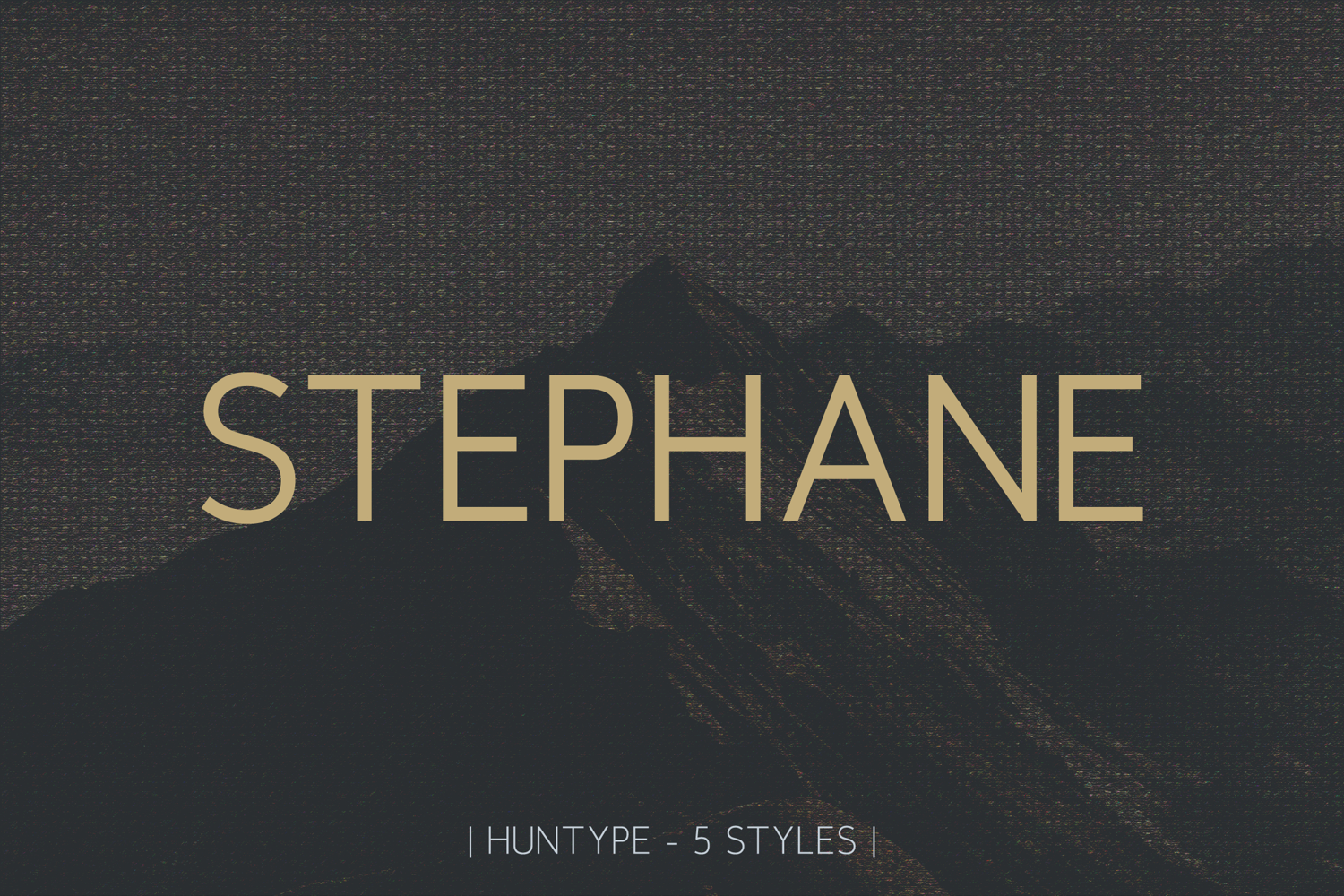
Stephane Sans Serif Family - 5 Styles
Stephane Bold
Stephane Black
Stephane Regular
Stephane Light
Stephane Thin
Stephane is a modern and versatile font family, a blend of clean geometric forms and subtle sophistication. Its adaptable style is evident in the precise letterforms and contemporary aesthetic. A harmony of sharp lines and gentle curves. Each font in the family stands alone, impactful and refined in its own right.
Stephane includes five fonts: Thin, Light, Regular, Bold, and Black.
• Stephane Black - Bold and impactful for commanding headlines.
• Stephane Bold - Strong and persuasive for key messages.
• Stephane Regular - A balanced and versatile mid-weight for diverse applications.
• Stephane Light - Subtle and elegant for refined designs.
• Stephane Thin - Delicate and sophisticated for a minimalist touch.
Stephane excels in branding, logos, headlines, and various design projects. The range of weights provides flexibility to explore a wide array of applications, lending a modern and professional feel to any endeavor. Its clean, geometric aesthetic makes it particularly suitable for projects requiring a contemporary and sophisticated look.